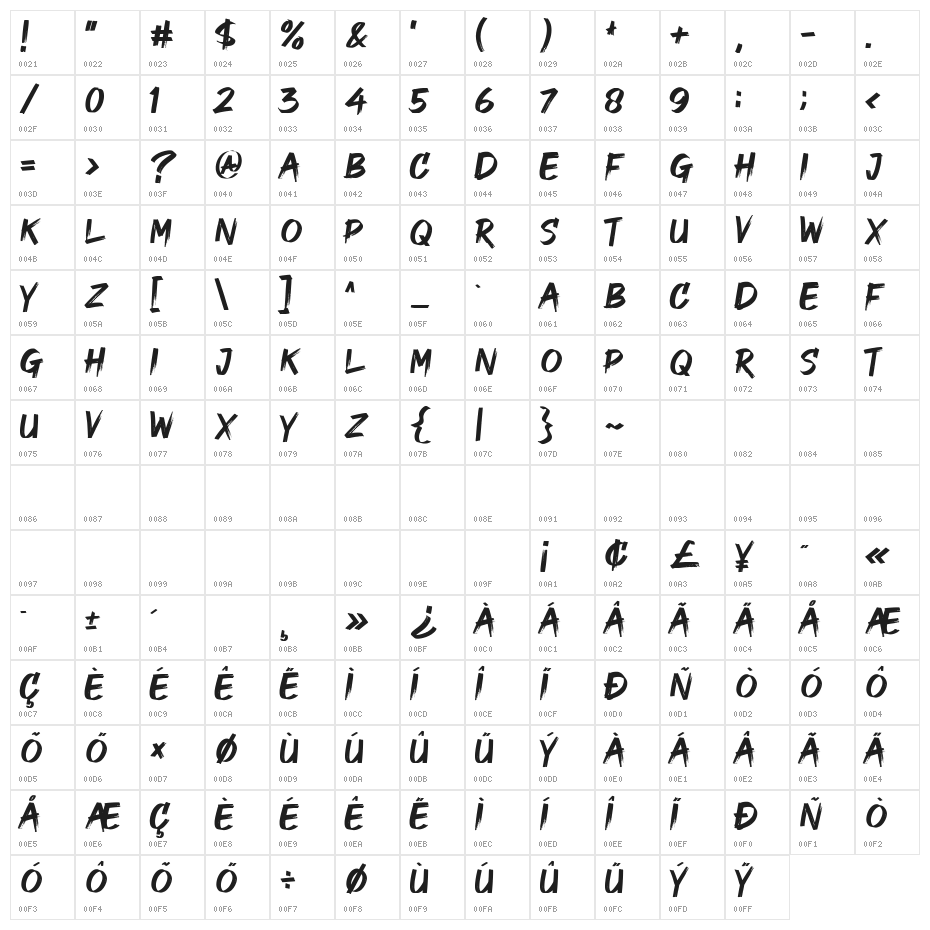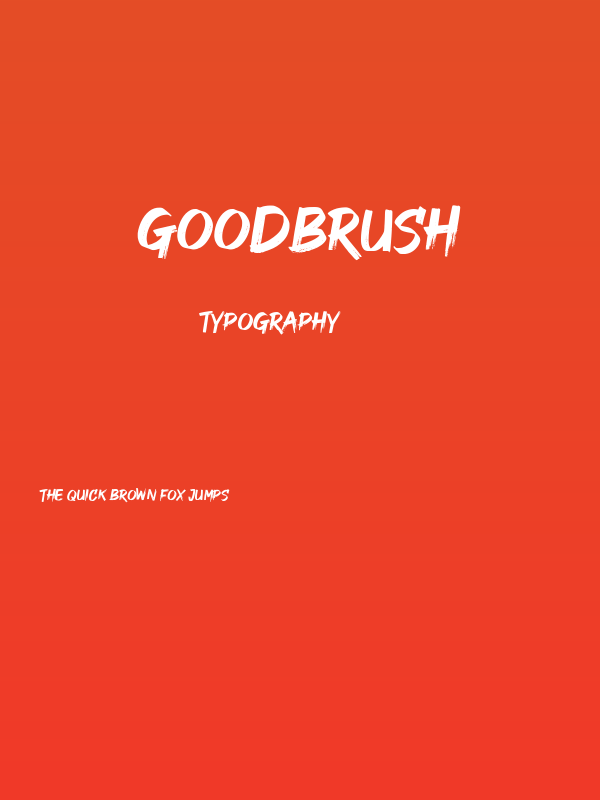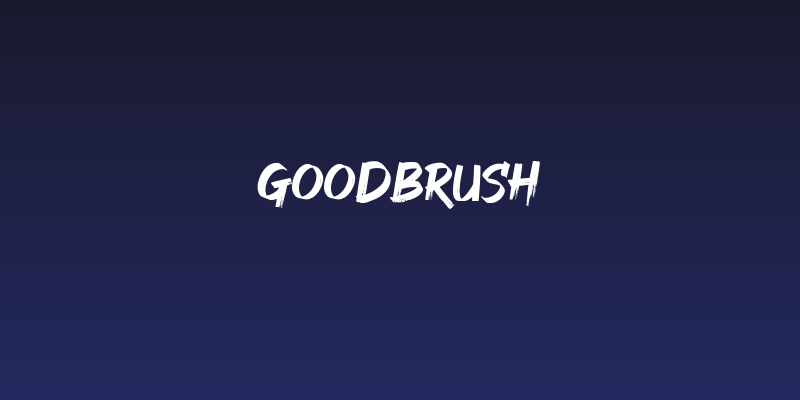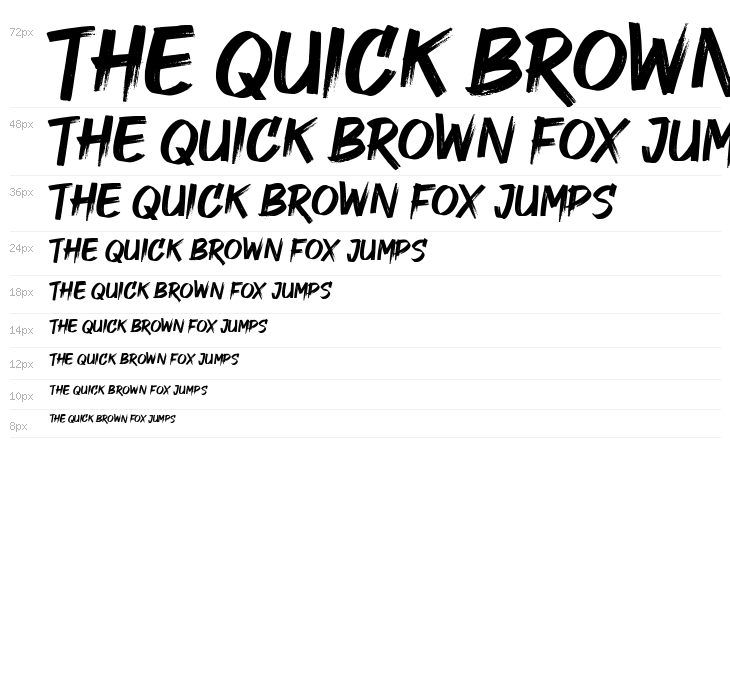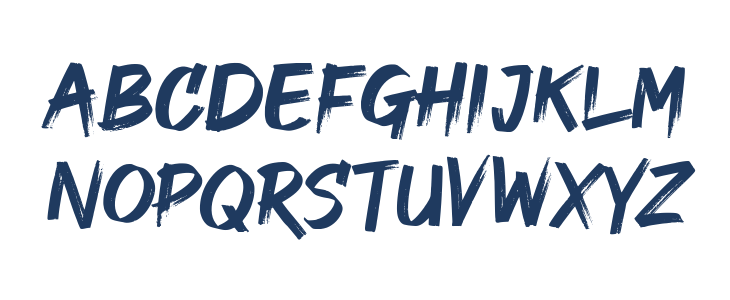
GOODBRUSH Font
GOODBRUSH Description
This font features a bold, energetic brush style that conveys a sense of dynamism and creativity. The strokes are uneven and textured, mimicking the effect of a hand-painted brush, which adds a personal and artistic touch. The uppercase and lowercase letters maintain a consistent style, with a slightly slanted orientation that enhances the sense of movement. The numbers and special characters are equally expressive, ensuring a cohesive look across all elements. This font is ideal for projects that require a bold statement or a creative flair.
| Overall Style | Modern, Artistic |
| Proposed Projects | Ideal for posters, branding, packaging, and creative projects that require a bold and artistic touch. |